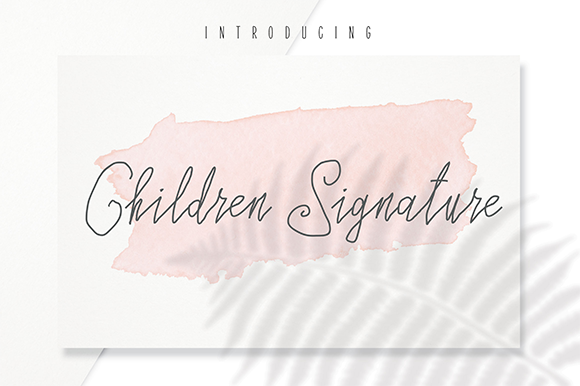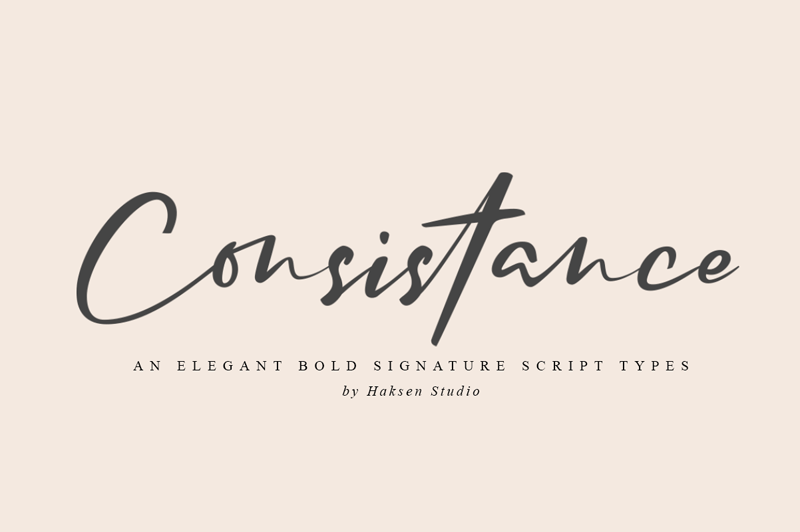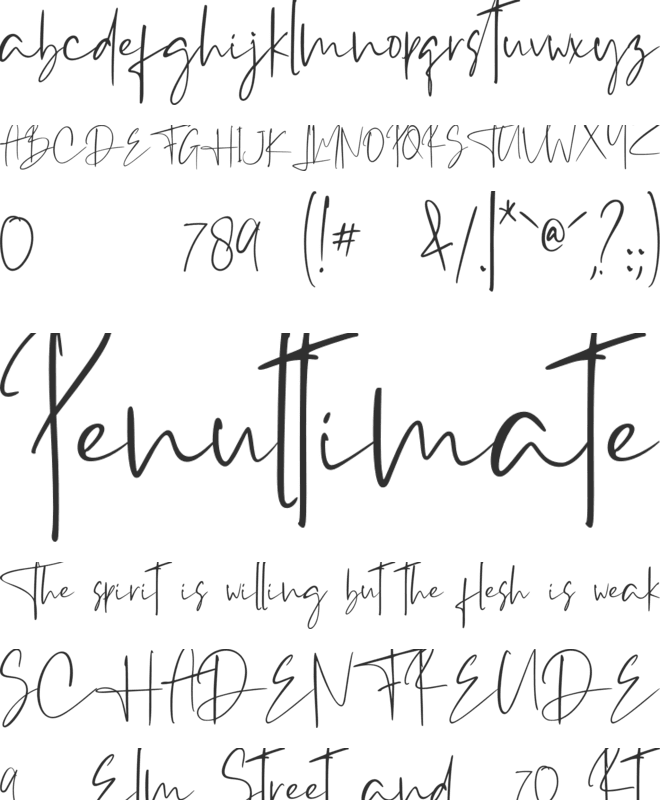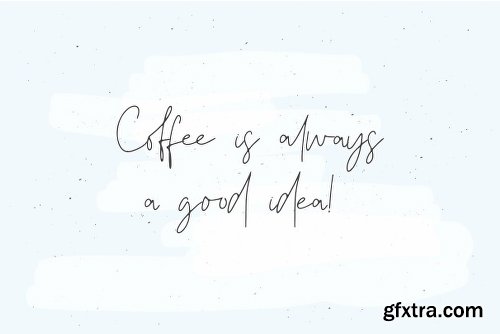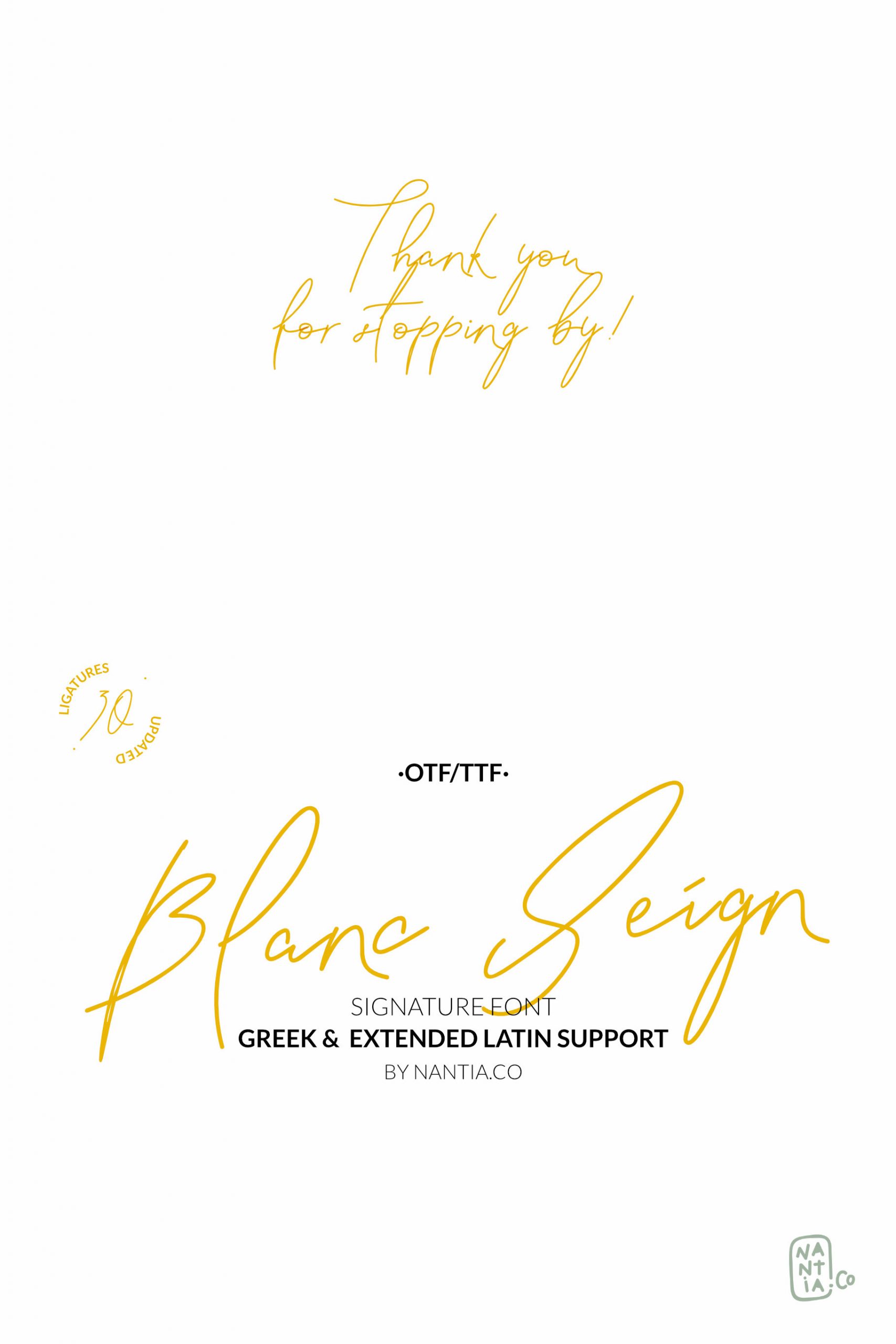
Free Nice Signature Fonts | Premium Fonts
Free and Premium Quality Fonts - Best Premium FontsMany designers are looking for the style of handwriting fonts or signature fonts and the random letter arrangement. The generator will let you choose a recommended font based on style. Handwriting fonts let you use the computer to create handwriting style fonts that you can use in your designs writing and signature.
nice signature fonts
Nice signature fonts. One of my all time favorite signature fonts is called sydney. Use these free signatures to sign documents fill in checks or write your name for your newsletter. Sydney script font looks amazing and for only 16 its a total bargain. What is signature typeface.
With the fonts mentioned above you can create nice and neat email signatures. This free tool helps you create a free downloadable electronic signature which is the same as an online signature. Signature fonts are perfectly suitable for logo design stationery poster apparel branding wedding invitation card tagline layout design and much more. Signature fonts are created to look as close to a.
The signature looks very elegant and allows the recipient to easily find and read all necessary contact details. Digital signatures are a type of electronic signature with encrypted information that helps verify the authenticity of messages and documents. Signature fonts mimic the distinctive writing of a persons actual signature. One of the easiest ways to choose an email signature font is to create your signature with an email signature generator.
You not only get 2 signature script variations and a sans serif font i used the sans serif for photography in the logo example the font author gives you 12 ready made logo templates as well. All fonts are fashionable and unique style handmade script for your projects that need handwriting feels.